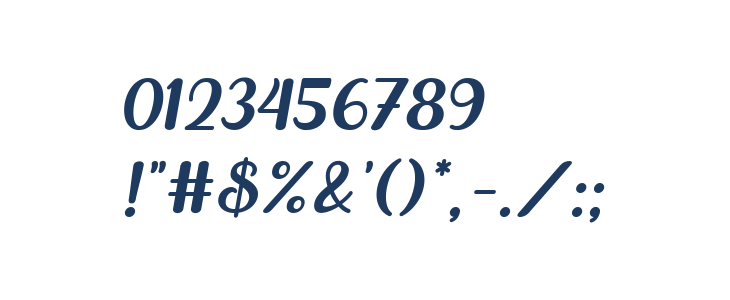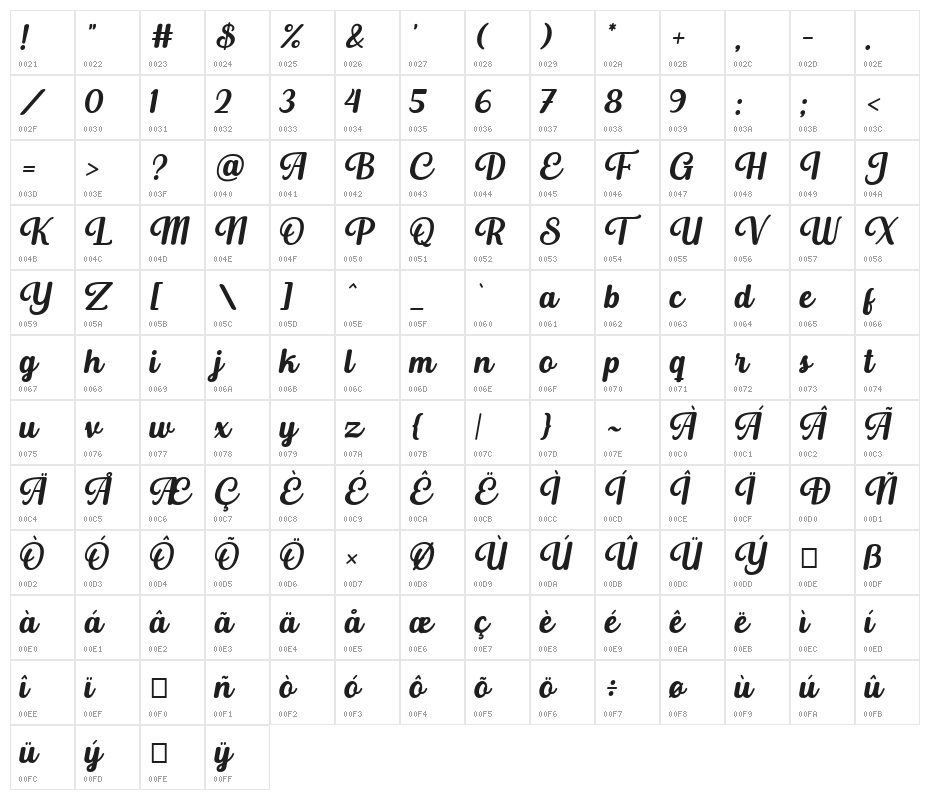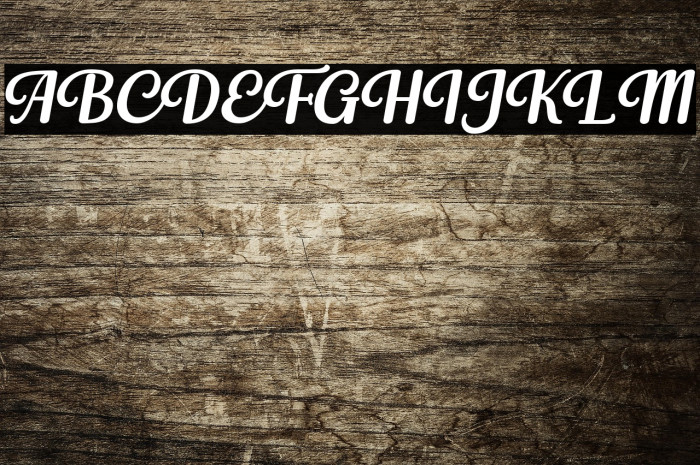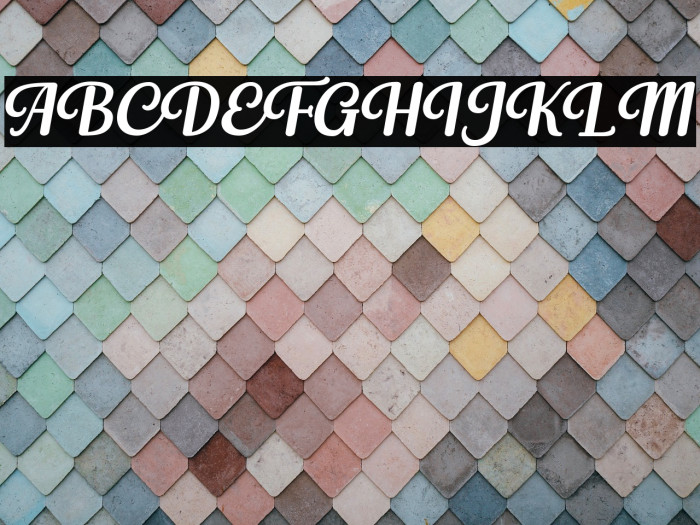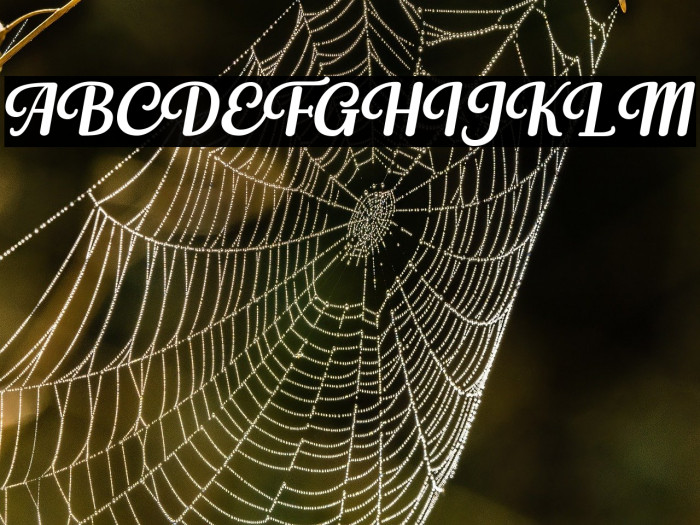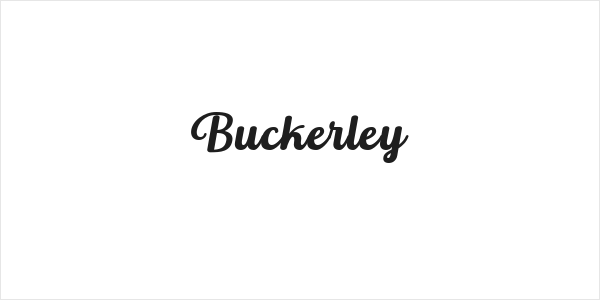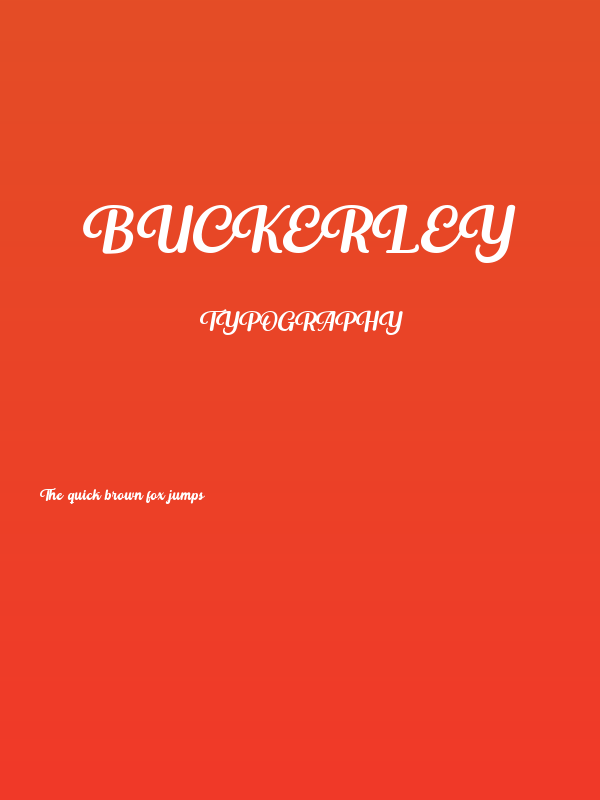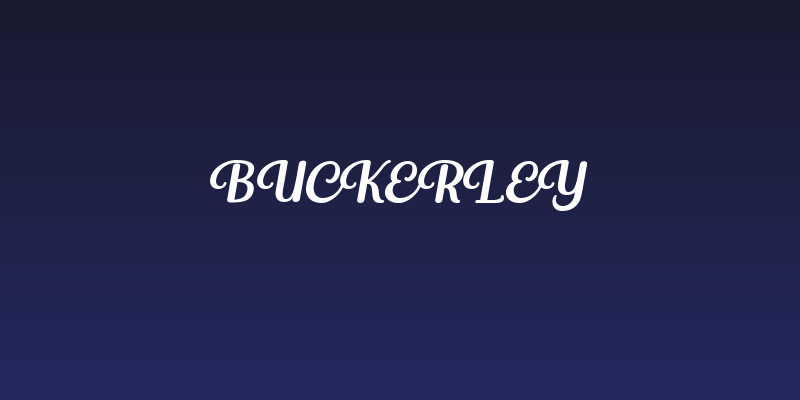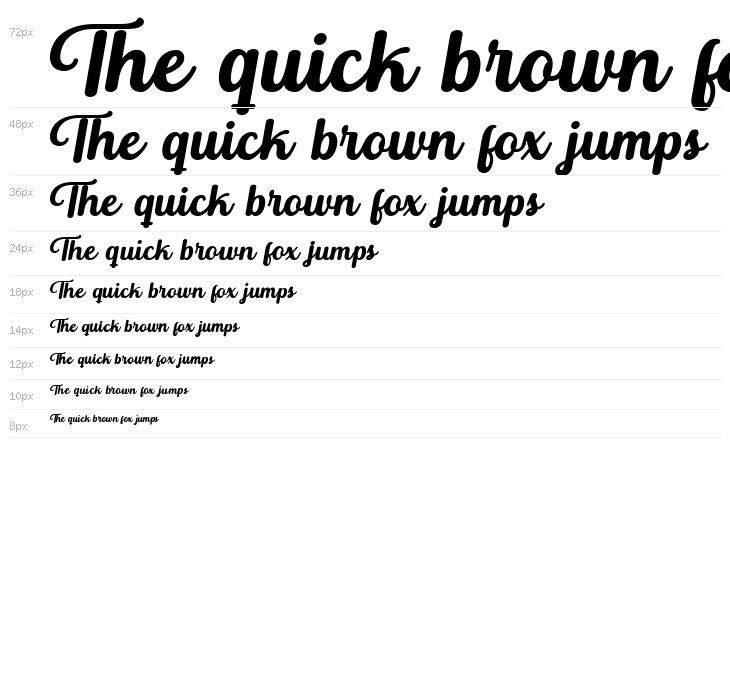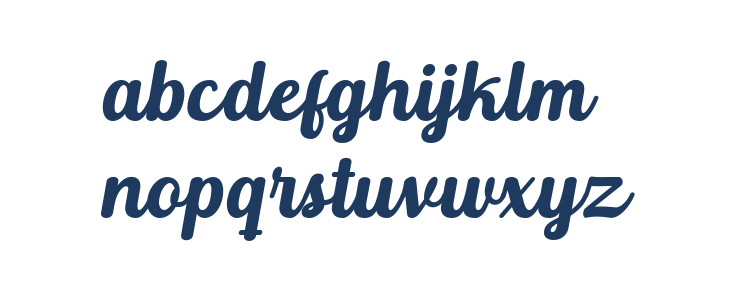
Buckerley Font
Buckerley Description
This font features a flowing, cursive style with elegant curves and smooth transitions between characters. The uppercase letters are bold and prominent, with a slight slant that adds a dynamic feel. The lowercase letters maintain a consistent flow, enhancing readability while retaining a stylish appearance. Numbers are well-proportioned, matching the overall aesthetic. Special characters are designed with the same attention to detail, ensuring they blend seamlessly with the rest of the font. This font exudes a sense of sophistication and grace, making it suitable for a variety of design applications.